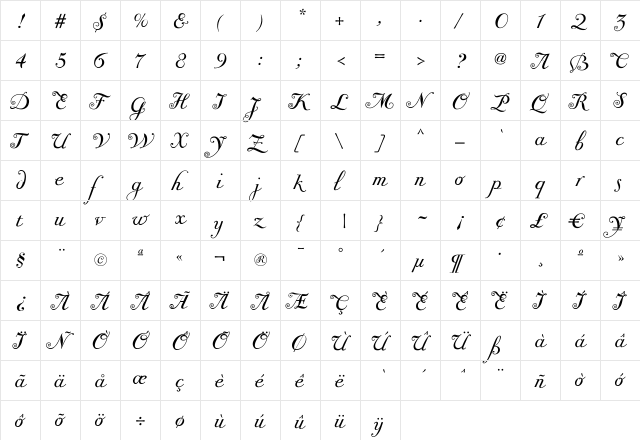
Giambattista Two Script
| Style | Script |
Design Context for Giambattista Two Typeface
Giambattista Two brings a calligraphic fluidity to the page — its connecting strokes and expressive curves give it an unmistakably human quality.
Font Pairing: Combine Giambattista Two with a simple geometric sans for maximum contrast — the tension between flowing curves and clean structure is a classic typographic pairing.
Pro Tip: Pair Giambattista Two with a clean sans-serif for supporting text. The contrast between fluid script and geometric structure creates an elegant typographic hierarchy.